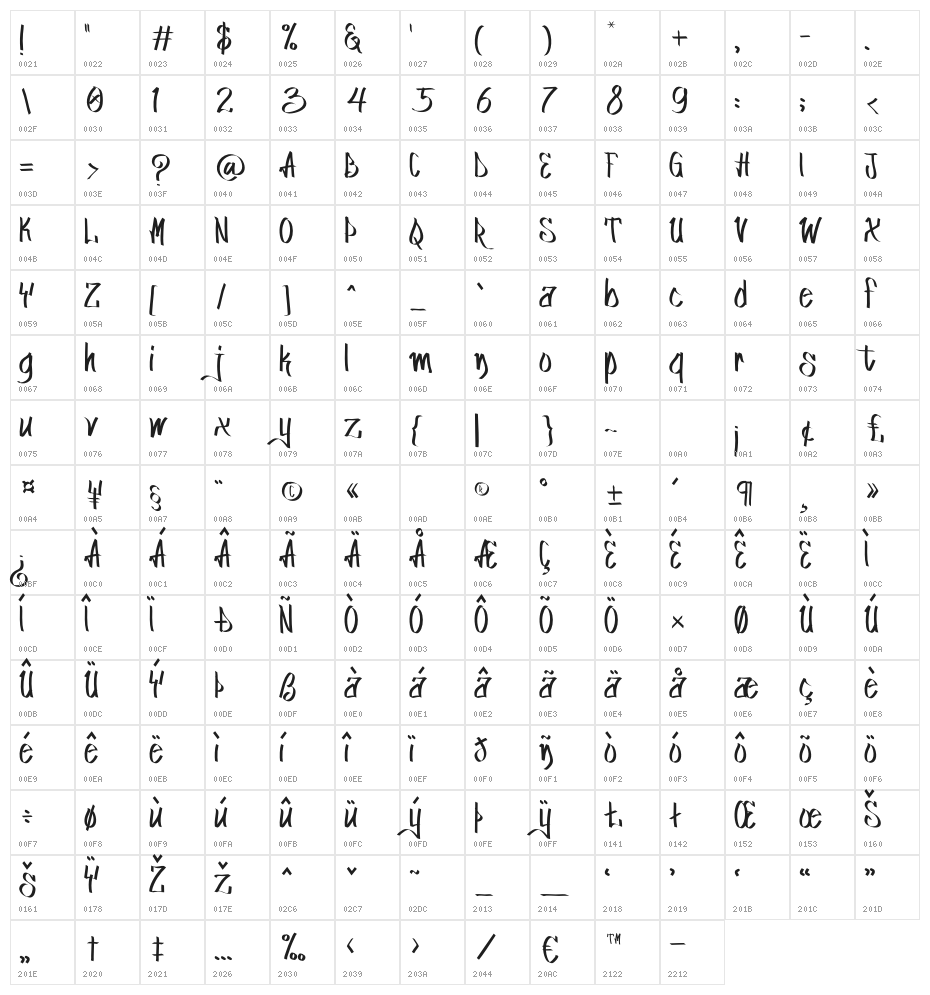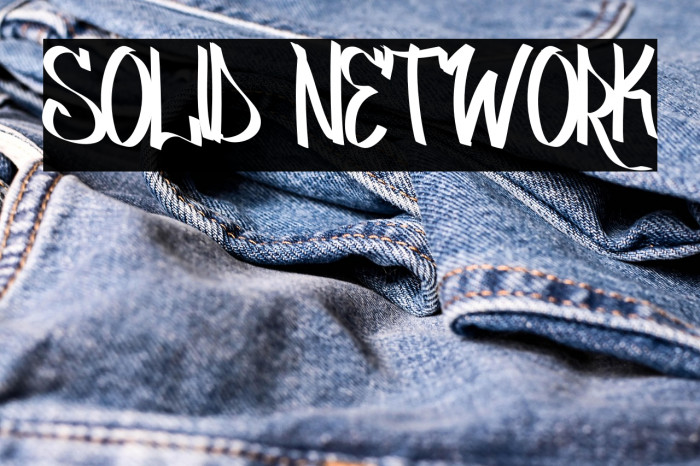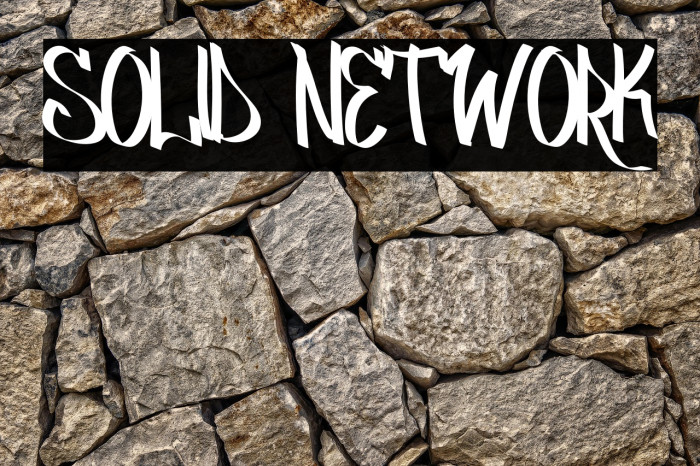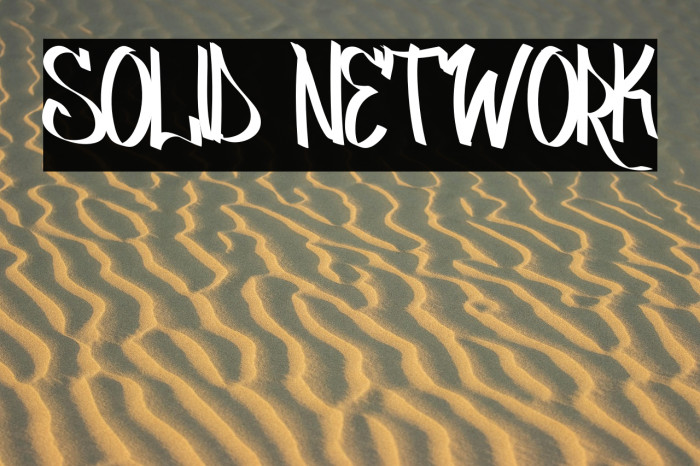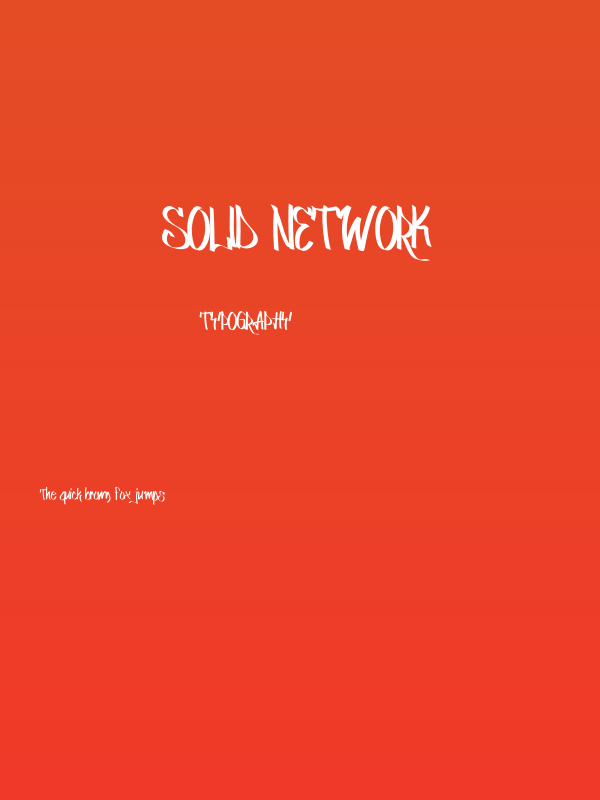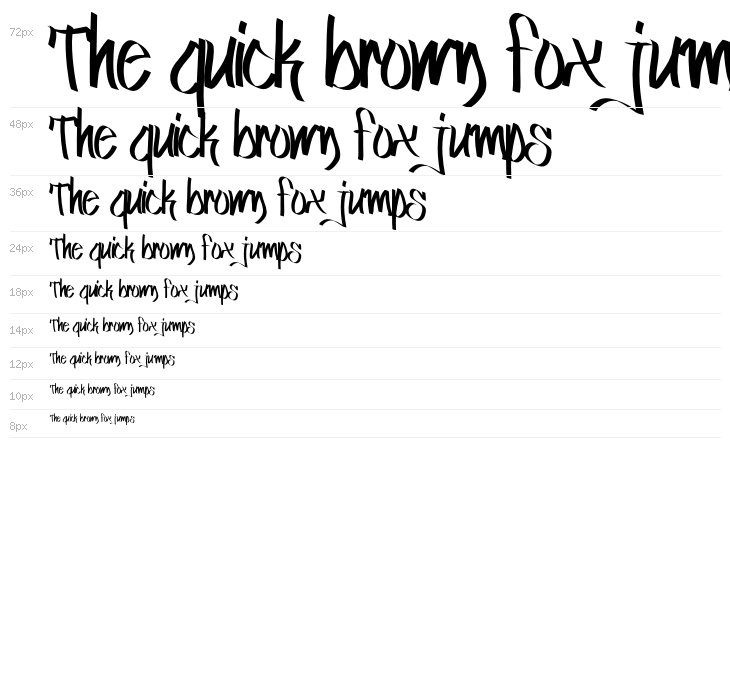
SOLID NETWORK Font
SOLID NETWORK Description
This font exhibits a bold and expressive style with a handwritten, graffiti-like appearance. The letters are characterized by their fluid, dynamic strokes and varying thickness, giving them a lively and energetic feel. The uppercase and lowercase letters maintain a consistent style, with exaggerated curves and angles that add to the font's unique personality. The numerals and special characters follow the same aesthetic, ensuring a cohesive look across all elements. This font is ideal for projects that require a bold, artistic touch.
| Use Case | Logos, Headlines, Posters |
| Proposed Projects | Ideal for street art designs, urban-themed posters, album covers, and creative branding projects. |